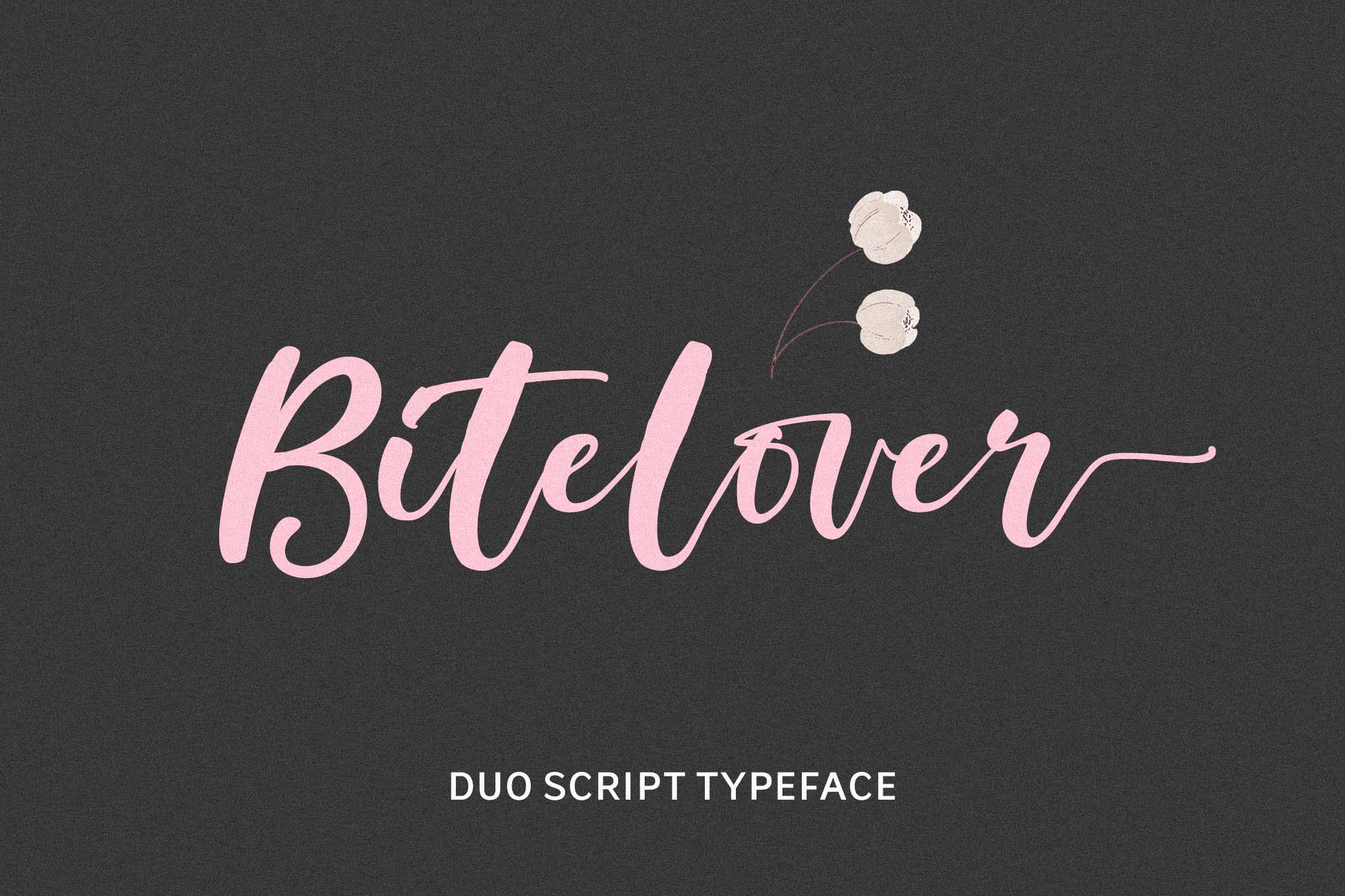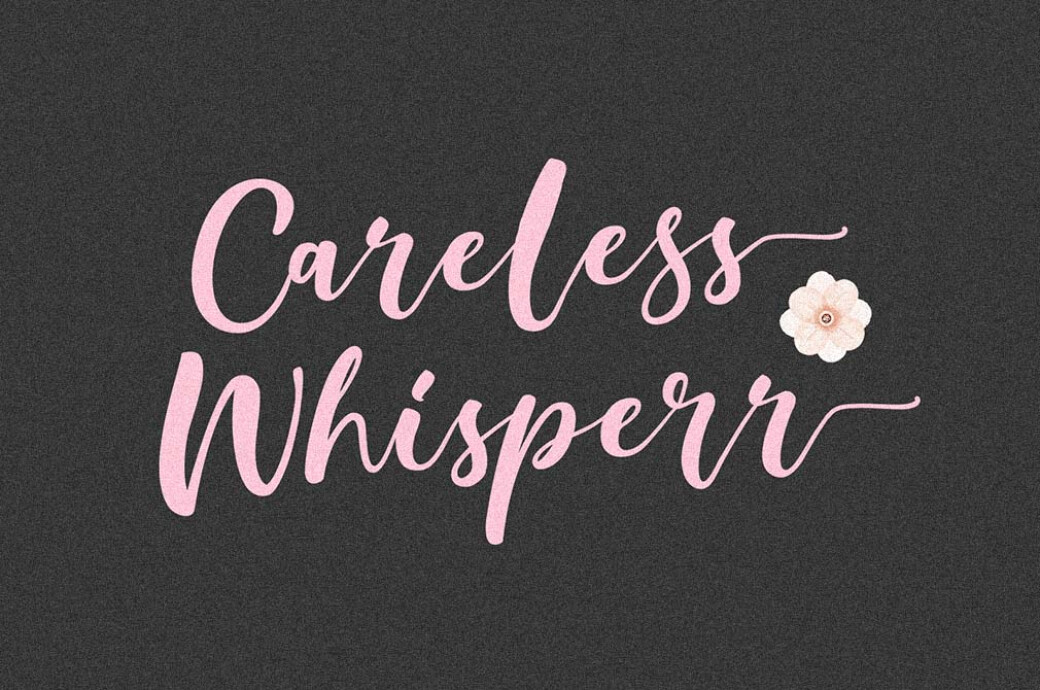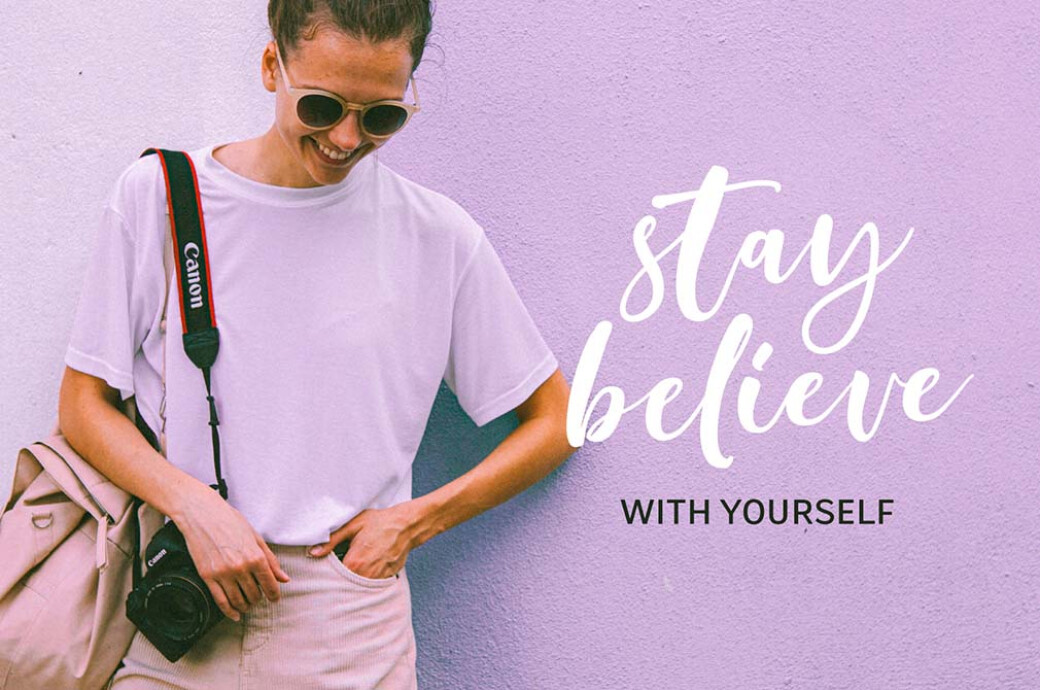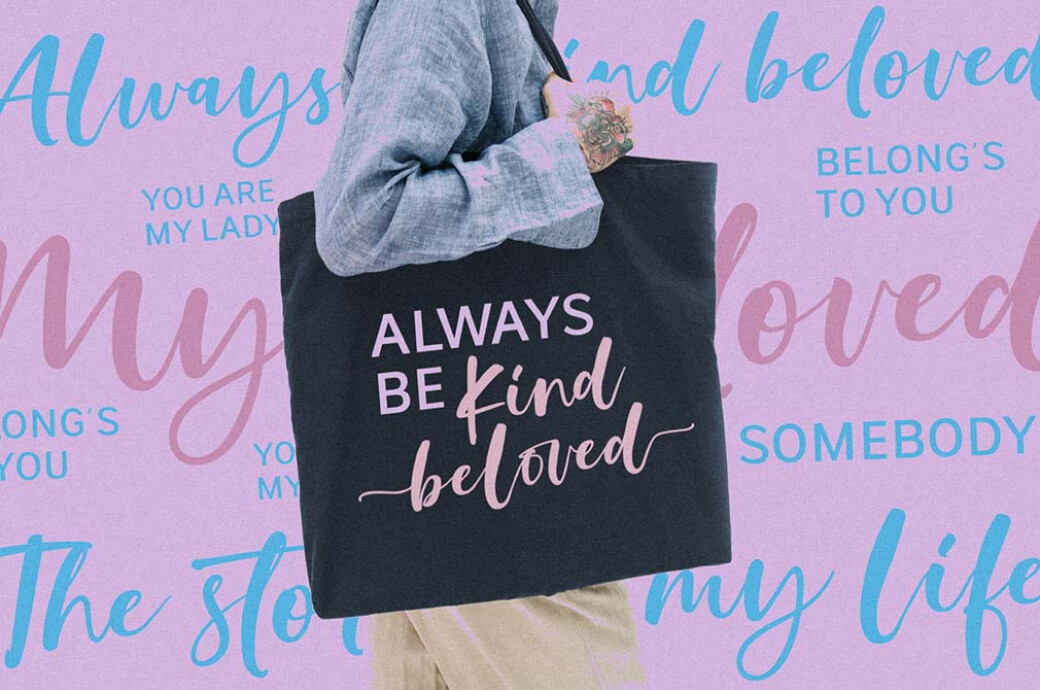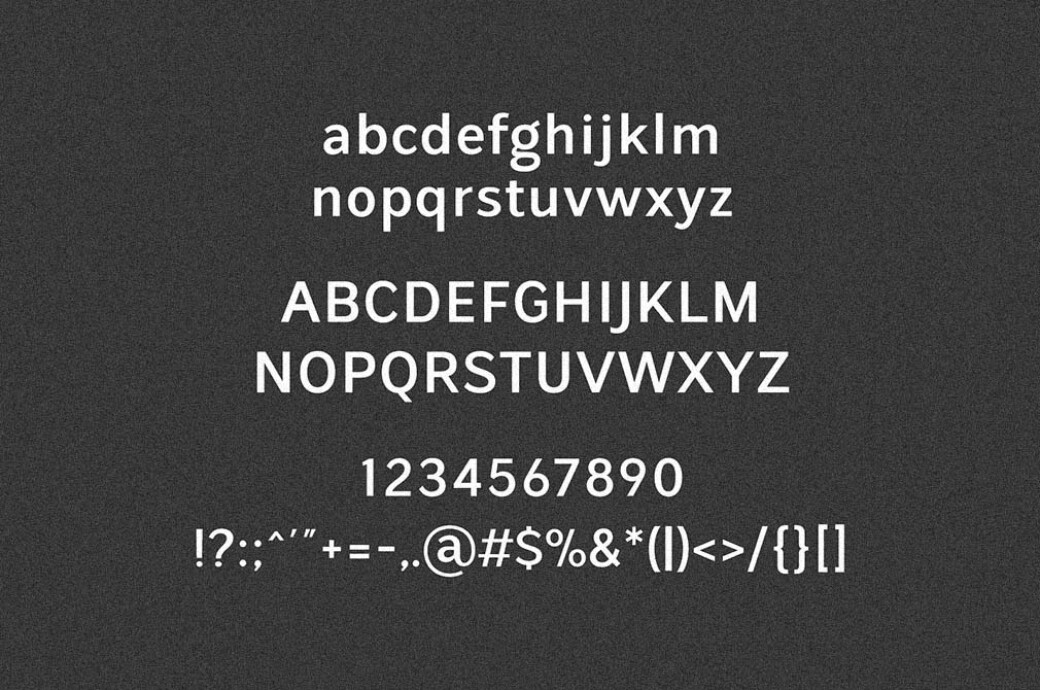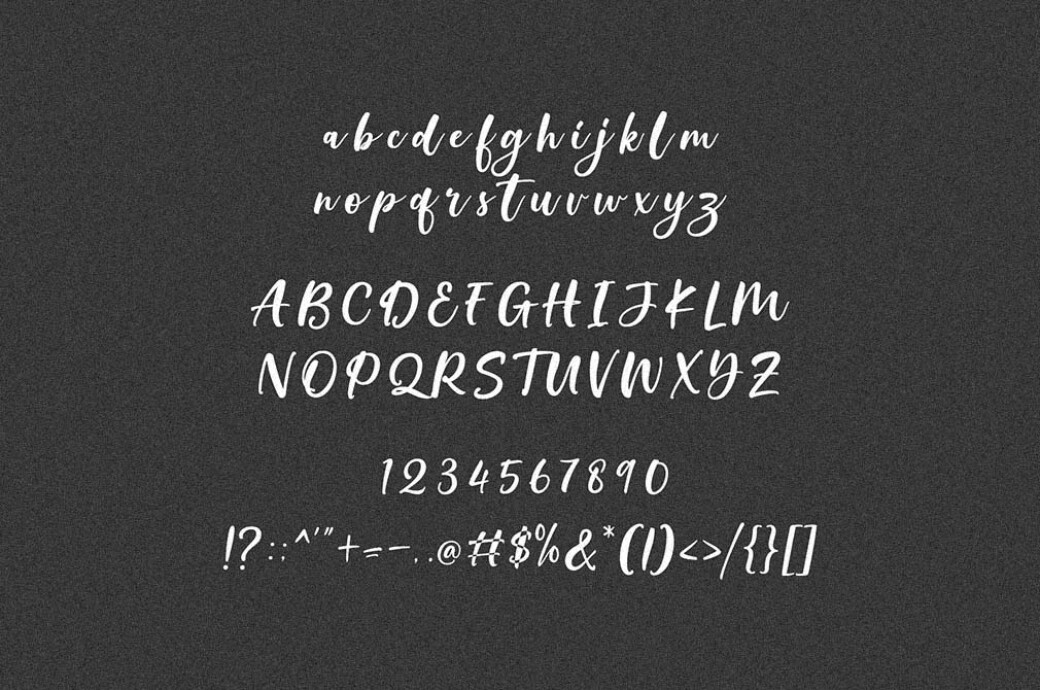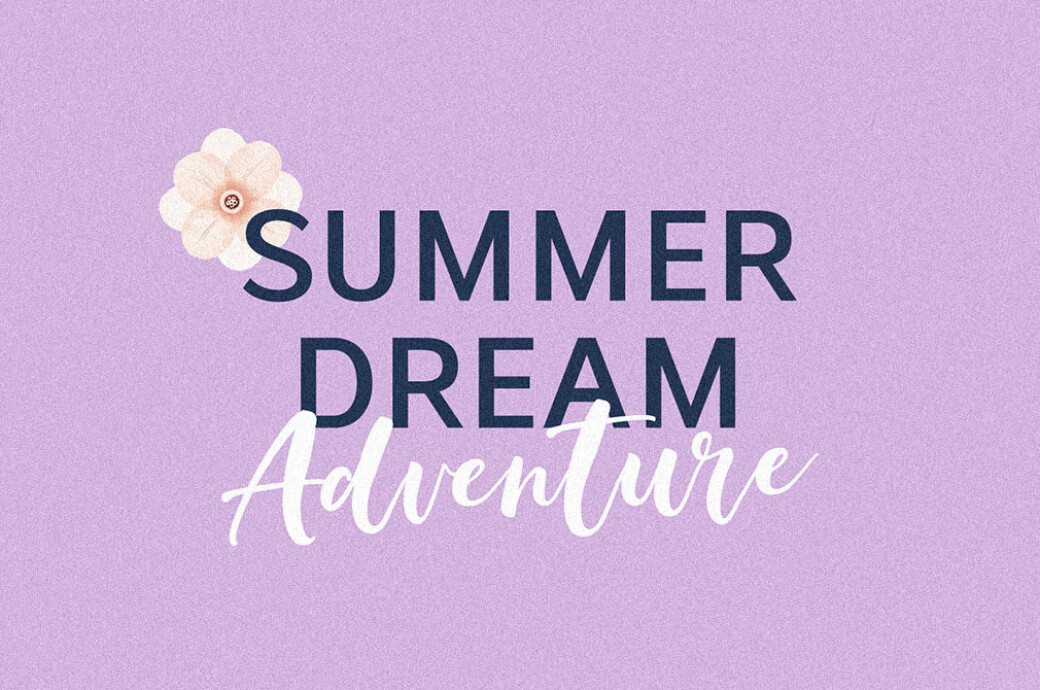
Bitelover Font Duo
What can be more heartwarming than a brush script paired with a minimalist sans serif? Only your designs featuring this lovely duo!So meet Bitelover, an enchanting pair of fonts with everything you'll need to design a pretty card, envelope, wedding invitation, logo, or t-shirt print. While the sans serif includes the basics (uppercase and lowercase letters, numbers, symbols, and multilingual support), the brush font has a ton of extras. There are discretionary ligatures, alternate characters, and swashes to highlight the romantic or elegant vibe of your text.